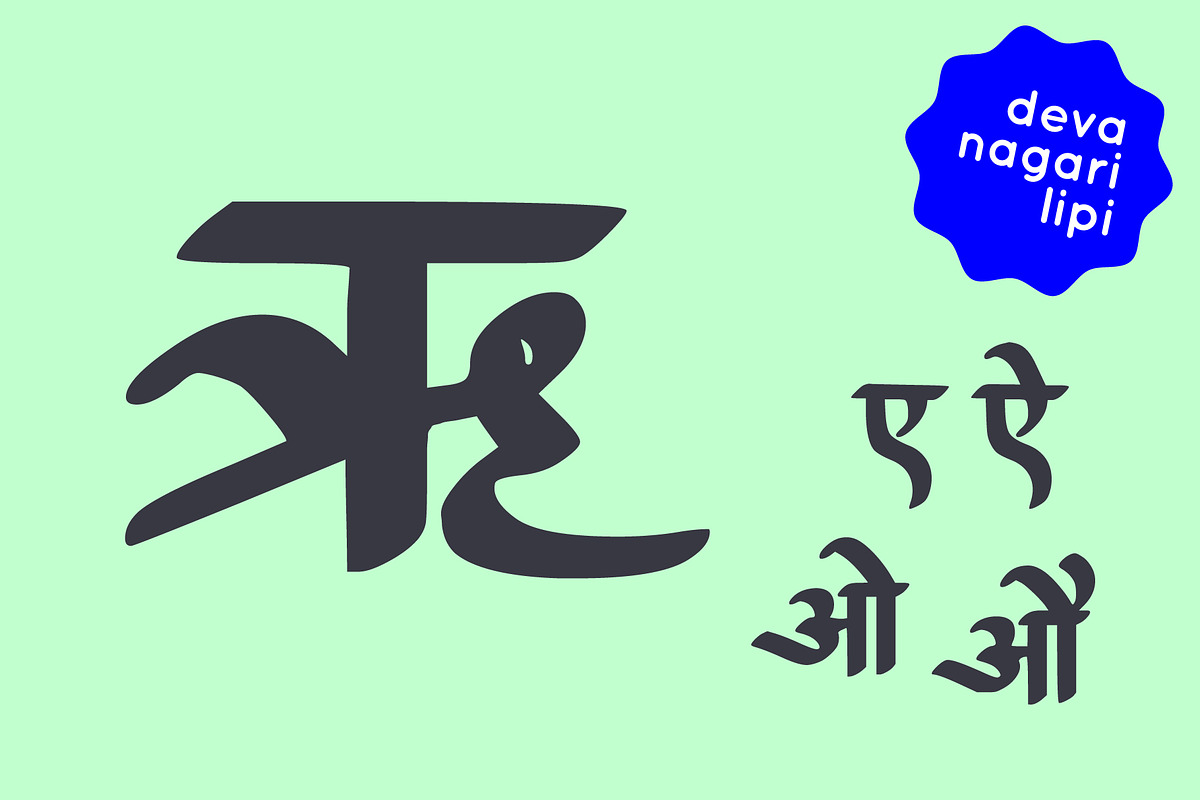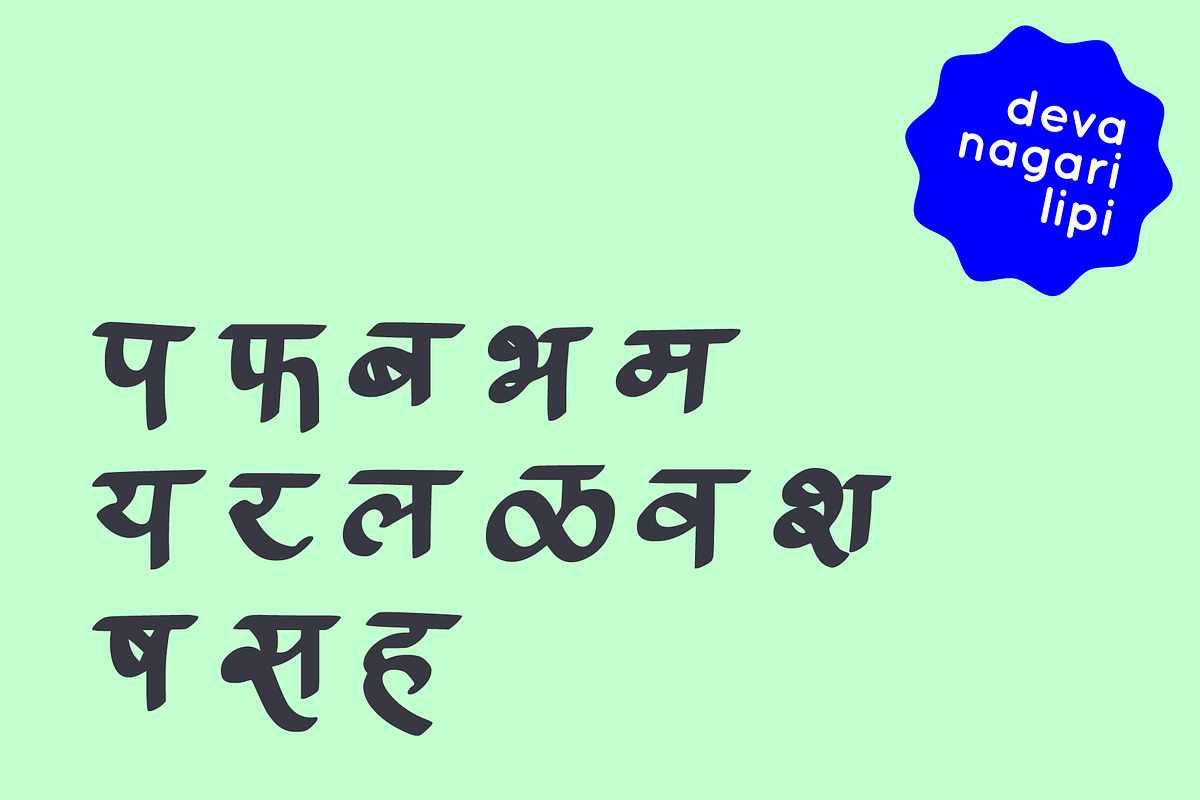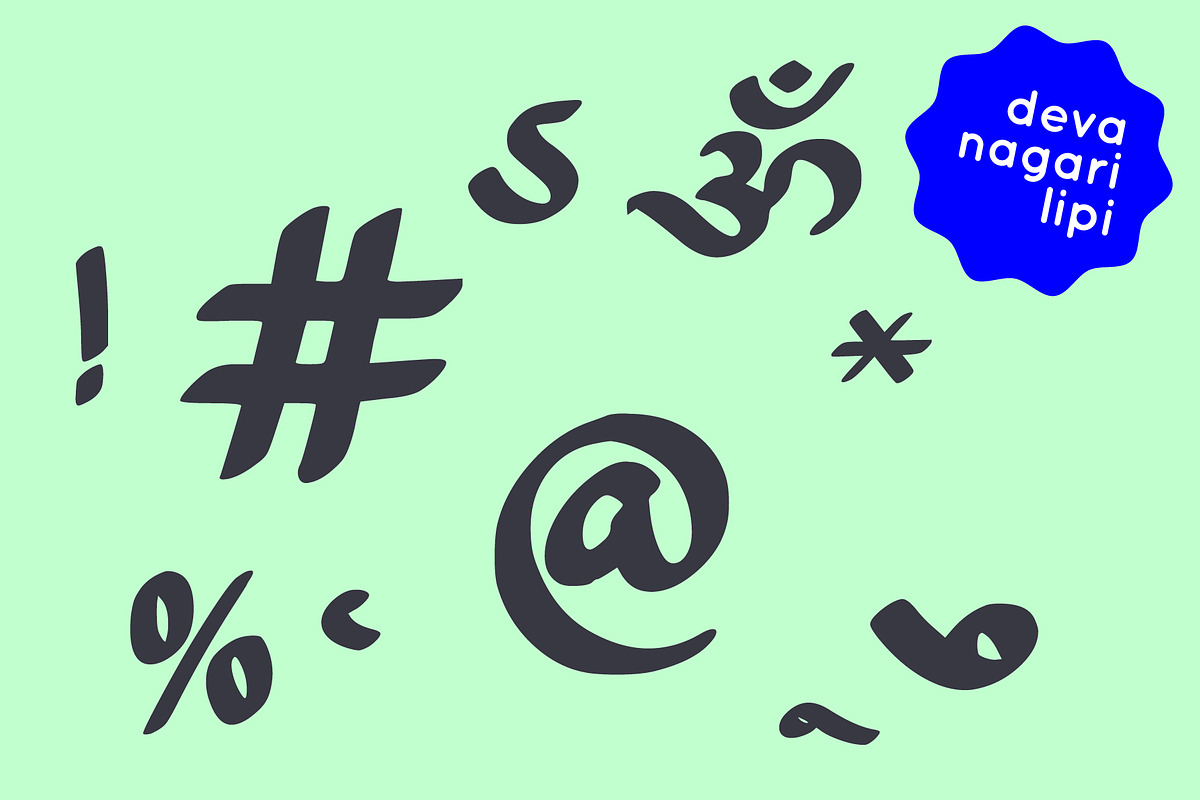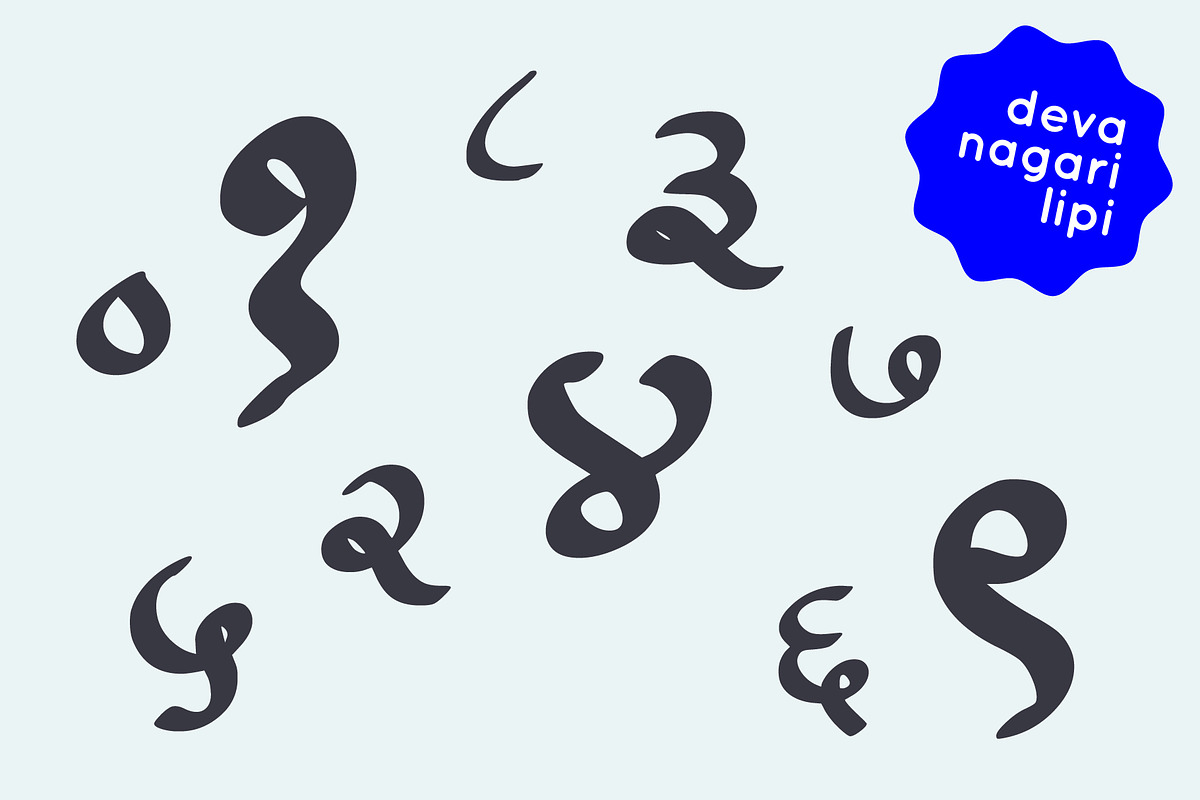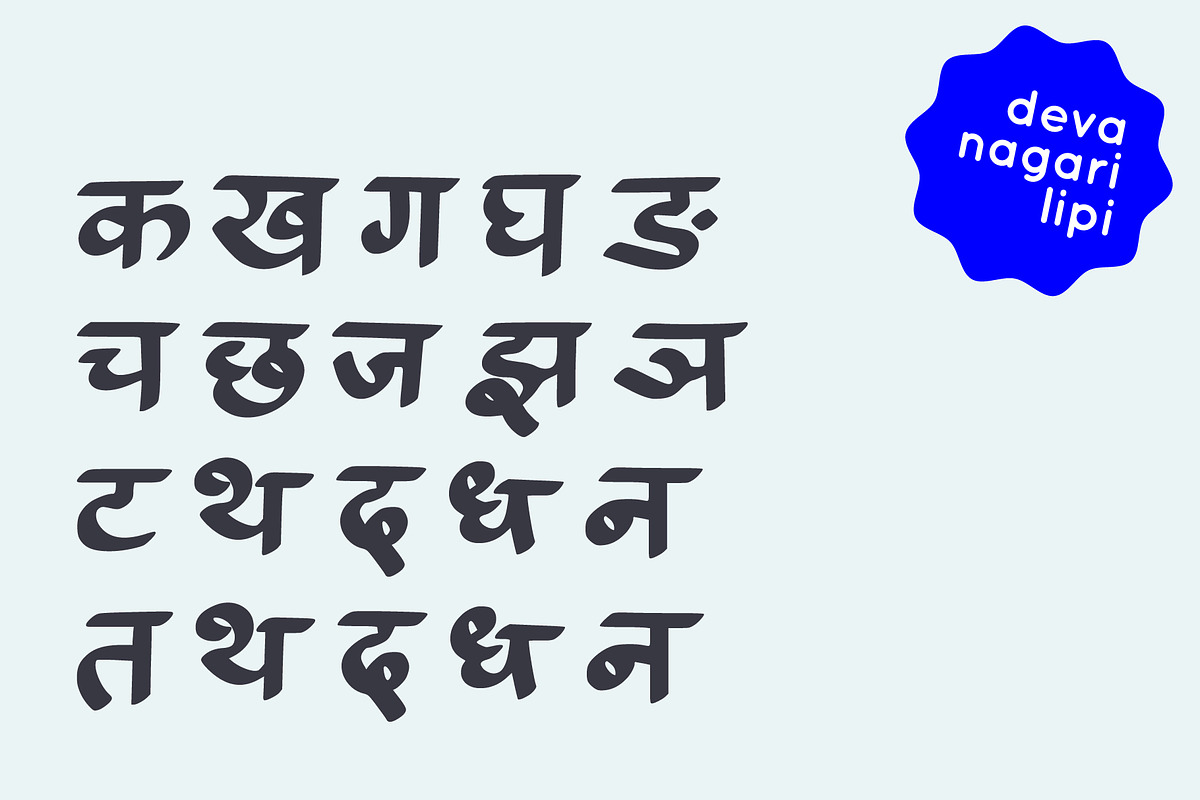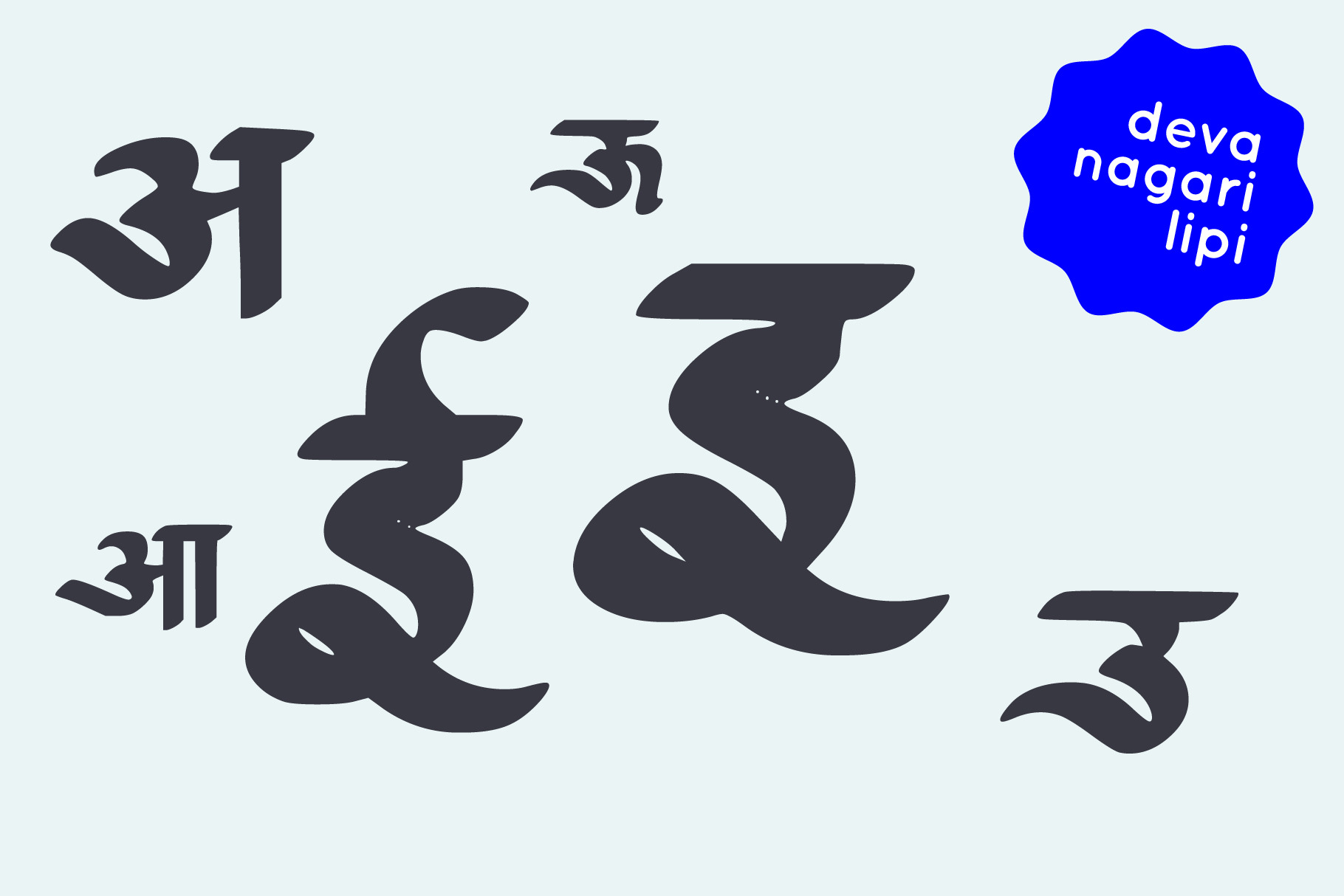
Devanagari smooth font - Hindi font
A simple handwritten Devanagari font - suitable for Hindi and Marathi. Upon successful purchase - .ttf and .otf files are available for download immediately.
Perfect for display font, suitable for book covers, educational material, graphic design, and more.
Please note, numbers are included.